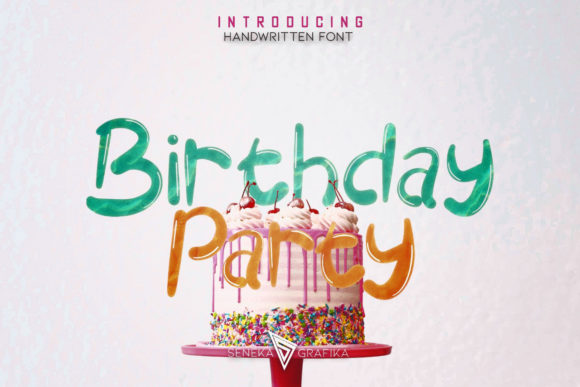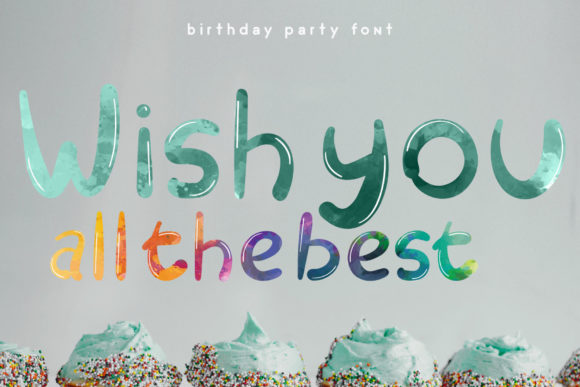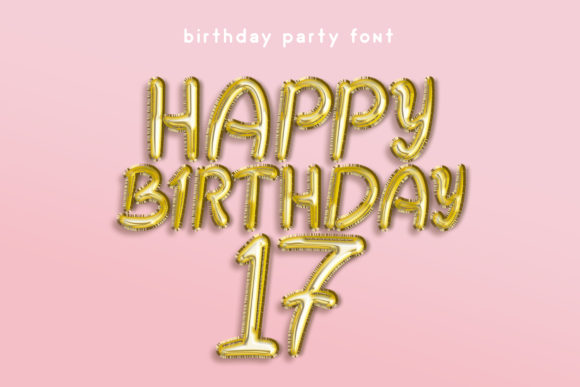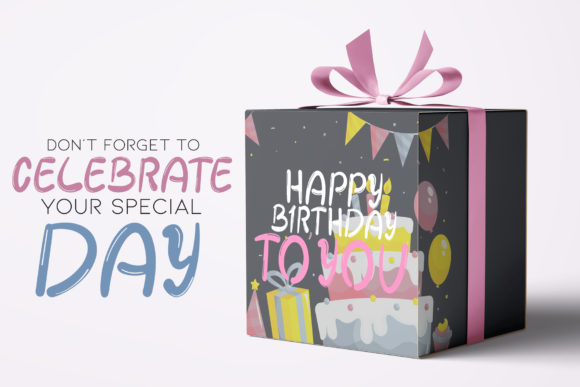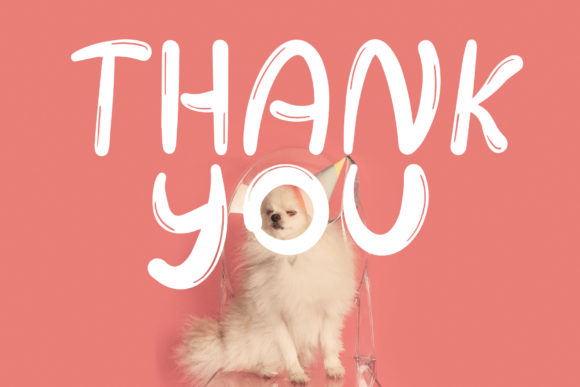
About Birthday Party Font
Birthday Party is a unique and simple handwritten font. It is suitable for informal designs, such a posters, birthday cards, banners and more. Elevate your creations with this lovely font!